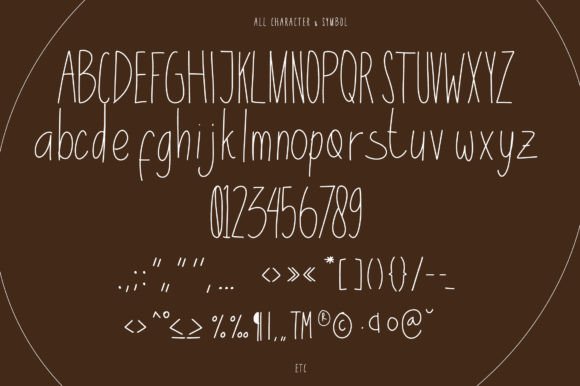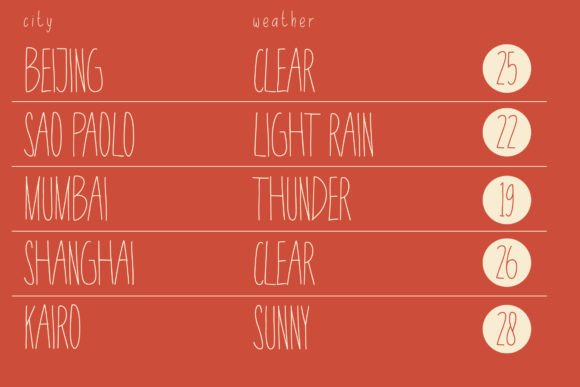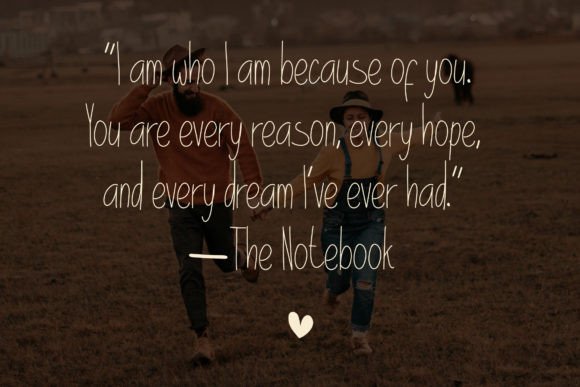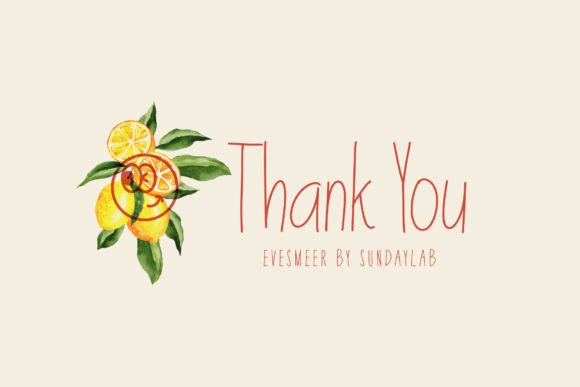
Evesmeer Font: Adding a Personal Touch to Your Designs
In the world of typography, fonts play a crucial role in conveying the tone and personality of a message. Among the numerous font styles available, handwriting typefaces have gained immense popularity for their unique and personal touch. One such font that has caught the attention of designers and crafters is the Evesmeer Font. In this article, we’ll delve into the world of Evesmeer, exploring its characteristics, uses, and benefits.
What is Evesmeer Font?
Evesmeer is a special kind of font called a handwriting typeface. It’s designed to look like someone’s actual handwriting, giving a personal touch to your words. With its unique curves and lines, Evesmeer adds warmth and personality to any text, making it perfect for adding a personal flair to your projects.
Characteristics of Evesmeer Font
Evesmeer Font boasts several distinct characteristics that set it apart from other fonts. Some of its notable features include:
- Unique Curves and Lines: Evesmeer’s handwriting style is marked by its fluid, organic curves and lines, giving it a natural and personal feel.
- Warm and Inviting: The font exudes a sense of warmth and friendliness, making it perfect for projects that require a personal touch.
- Highly Legible: Despite its handwriting style, Evesmeer is highly legible, ensuring that your message is conveyed clearly and effectively.
Uses of Evesmeer Font
Evesmeer Font is versatile and can be used in various design projects, including:
- Branding and Packaging: Add a personal touch to your brand’s identity with Evesmeer’s unique handwriting style.
- Invitations and Stationery: Create beautiful, handmade-looking invitations and stationery with Evesmeer.
- Digital and Print Media: Use Evesmeer in digital and print media, such as blog posts, social media graphics, and flyers, to add a touch of personality.
- Crafting and Scrapbooking: Evesmeer is perfect for crafters and scrapbookers who want to add a personal touch to their projects.
Benefits of Using Evesmeer Font
Using Evesmeer Font offers several benefits, including:
- Personal Touch: Evesmeer adds a personal touch to your designs, making them more relatable and engaging.
- Unique Style: The font’s unique handwriting style sets it apart from other fonts, ensuring your designs stand out.
- Easy to Read: Evesmeer’s high legibility ensures that your message is conveyed clearly and effectively.
- Versatile: The font can be used in various design projects, from branding and packaging to digital and print media.
Tips for Using Evesmeer Font
To get the most out of Evesmeer Font, consider the following tips:
- Use it Sparingly: Use Evesmeer sparingly to add emphasis and create visual interest.
- Pair it with Other Fonts: Pair Evesmeer with other fonts to create a unique and visually appealing combination.
Evesmeer Font is a unique and versatile handwriting typeface that adds a personal touch to any design project. With its fluid curves and lines, warm and inviting style, and high legibility, Evesmeer is perfect for designers and crafters looking to add a personal flair to their work. Whether you’re working on branding and packaging, invitations and stationery, or digital and print media, Evesmeer is sure to make your designs stand out.